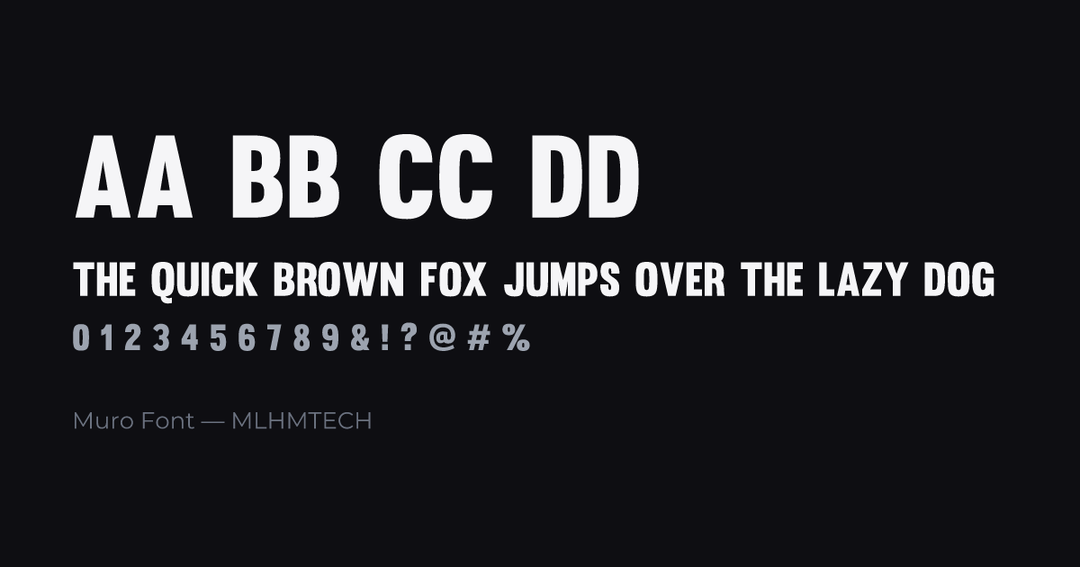
Muro Font
Muro is a modern sans-serif font with clean lines and a contemporary feel. Ideal for logos, headings, and branding projects.
Muro is a versatile sans-serif typeface that brings a clean and modern aesthetic to any design. Its geometric shapes and balanced proportions make it suitable for both digital and print applications.
This font is perfect for creating impactful logos, eye-catching posters, and clear web interfaces. Its legibility at various sizes ensures it works well in both large display settings and smaller text blocks.